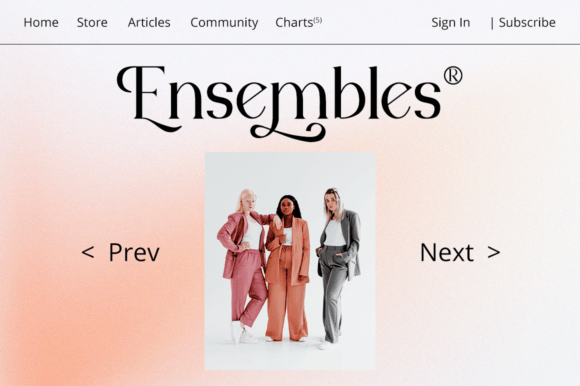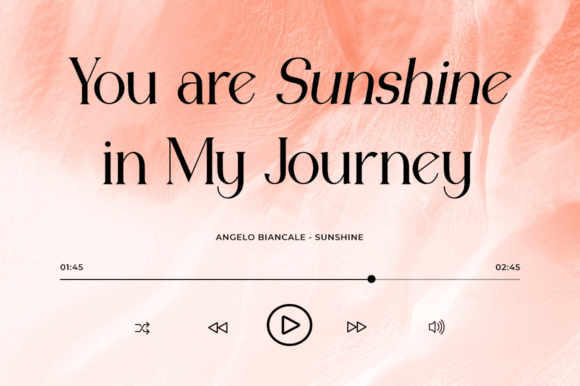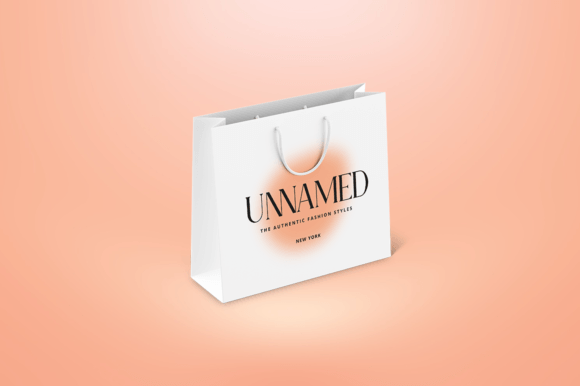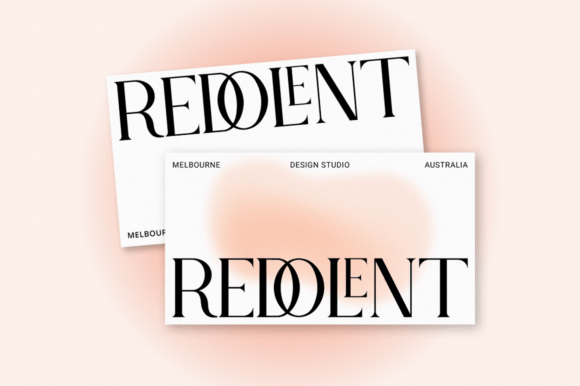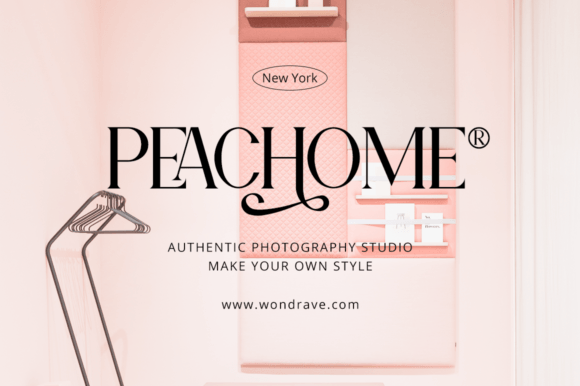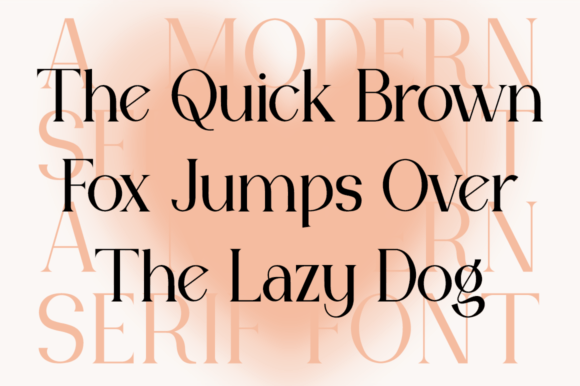
Introduction to Redolent Font
Redolent is an elegant and thin-lettered serif font.
Key Features of Redolent Font
Why Choose Redolent Font?
Redolent Font offers exceptional quality and versatility, making it a valuable addition to your design toolkit. Whether you’re creating for personal projects or commercial use, Redolent Font delivers professional results.